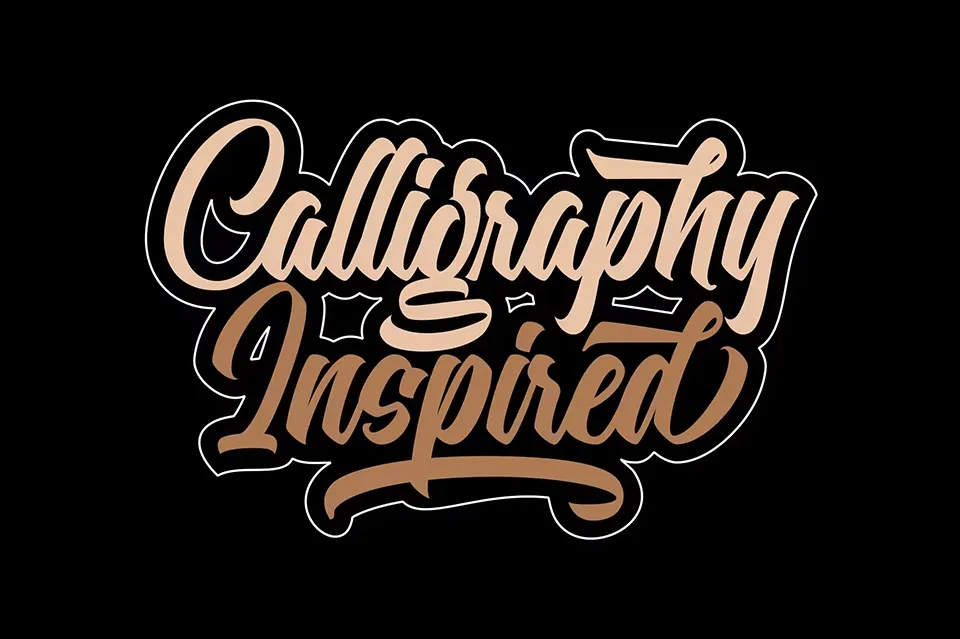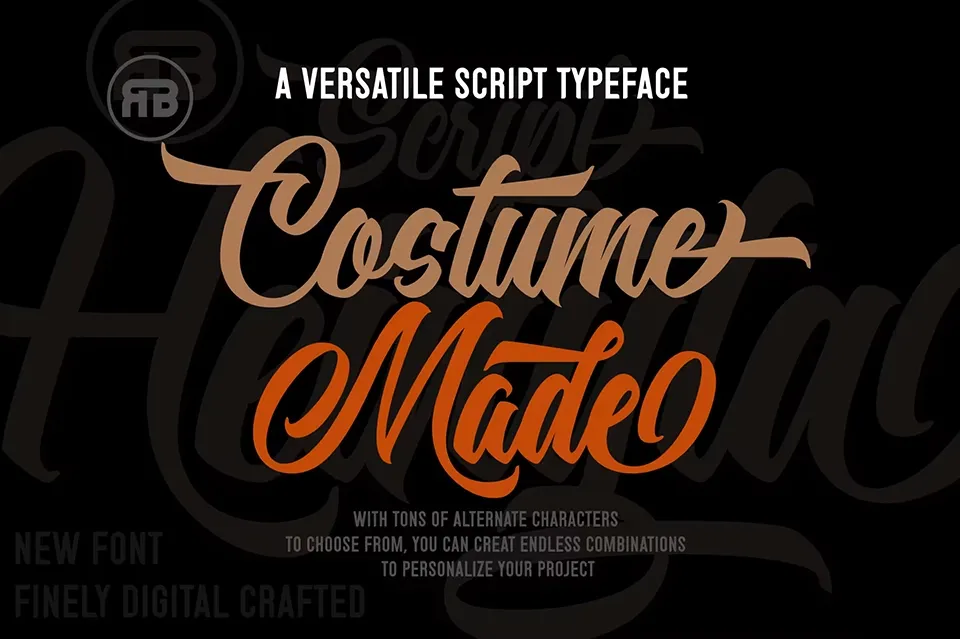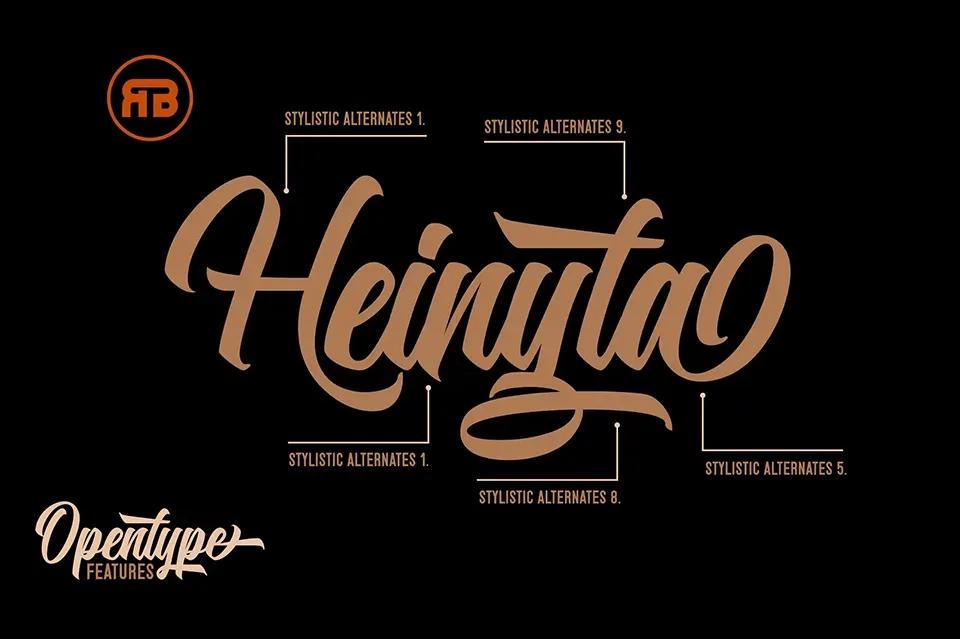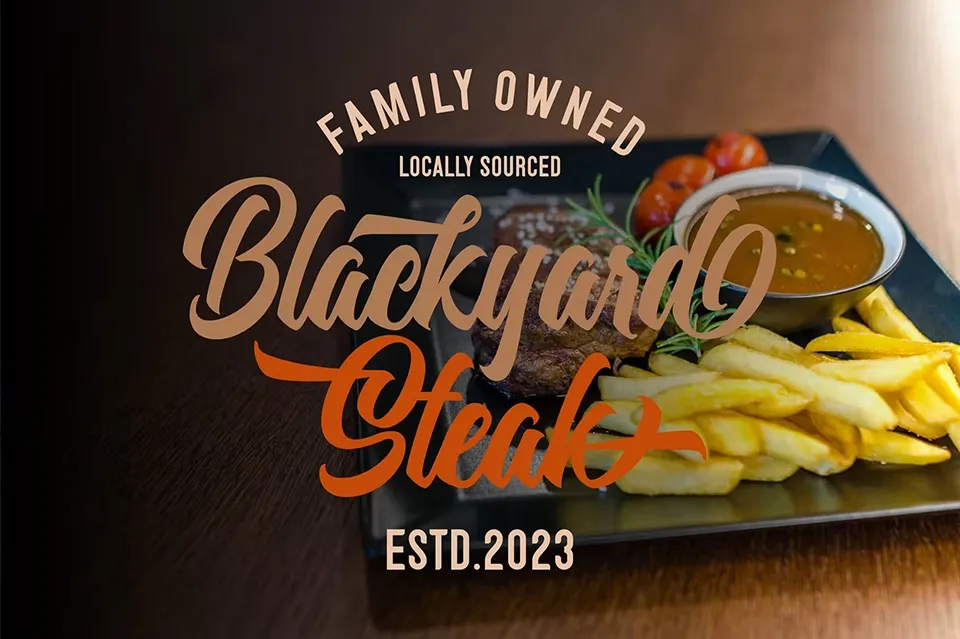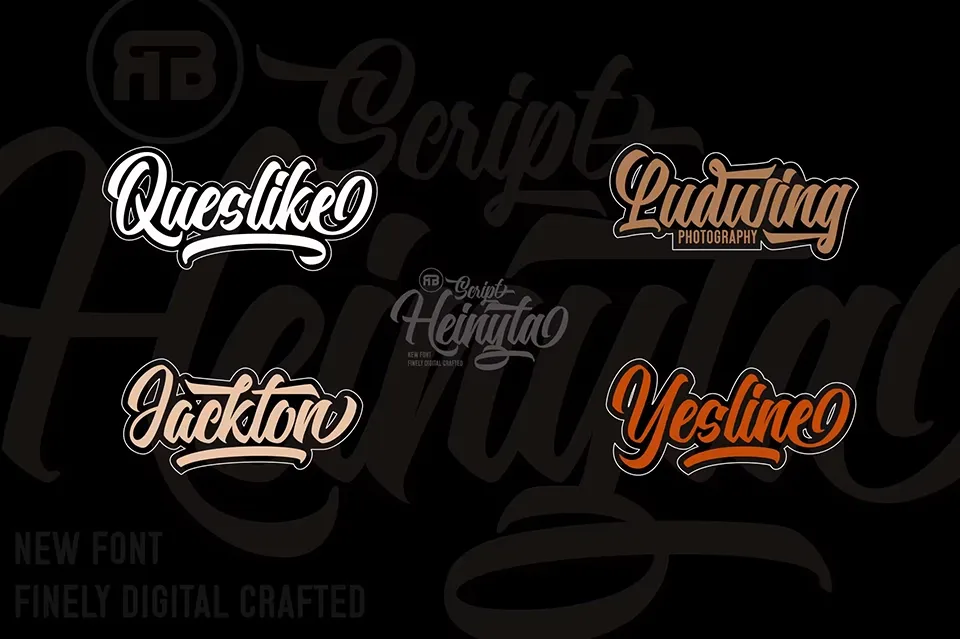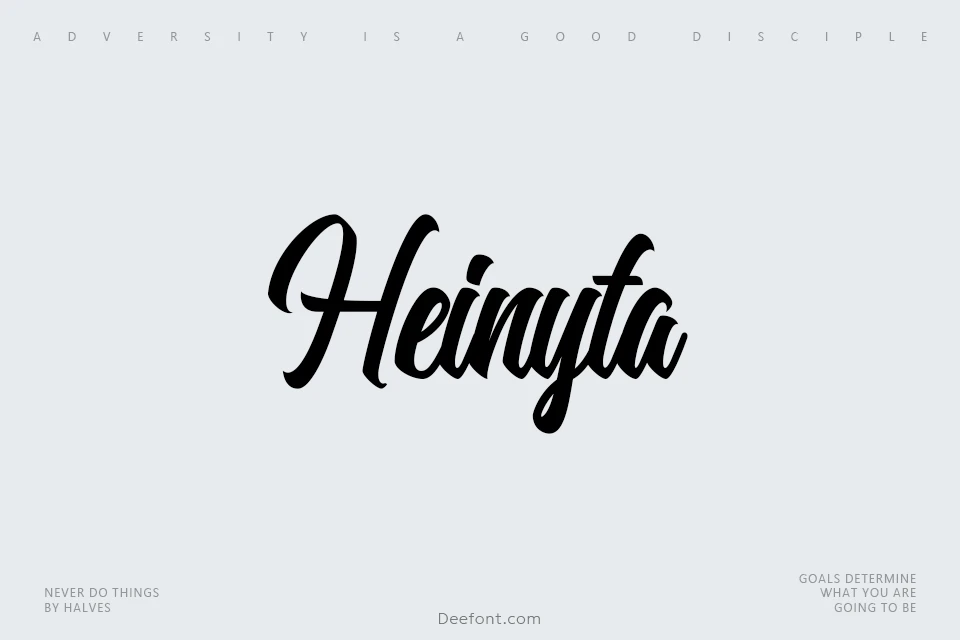
Heinyta Font
Heinyta Font is a modern script typeface from RGB Studio, inspired by urban scripts. It features sharp, elegant letterforms that create a trendy and sophisticated look. The font displays a bold presence with flowing connections and prominent, stylish swashes, as seen in its digitally crafted design. This combination gives Heinyta a distinctive character, blending urban edge with elegance. It’s well-suited for projects seeking a modern, impactful, and beautiful script, such as logos, headlines, branding, and fashion-related designs.